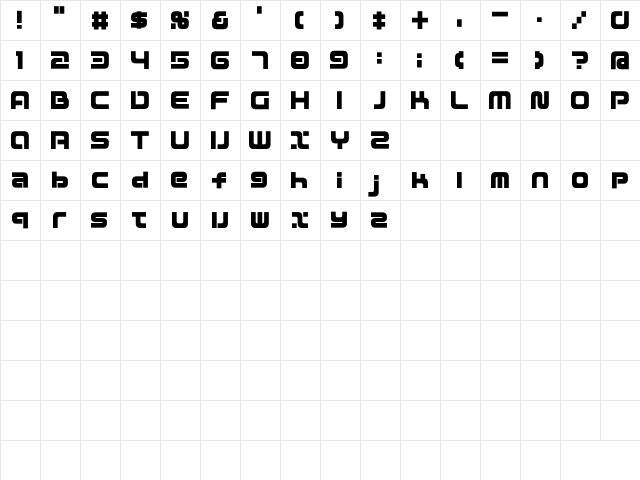
D3 Mouldism Round Alphabet Regular
Design Context for D3 Mouldism Round Alphabet Typeface
D3 Mouldism Round Alphabet uses gentle rounded endings to create a warm, inviting typographic personality — less corporate than geometric sans, more refined than playful display fonts.
Well-suited to UI design, mobile interfaces, and any brand that wants approachability without sacrificing clarity.
Font Pairing: Pairs well with a rounded or humanist sans for body copy, maintaining the friendly tone without relying on D3 Mouldism Round Alphabet to carry extended reading.
Pro Tip: Use D3 Mouldism Round Alphabet for UI elements, app interfaces, and anywhere a friendly, approachable tone needs to be maintained without sacrificing clarity.